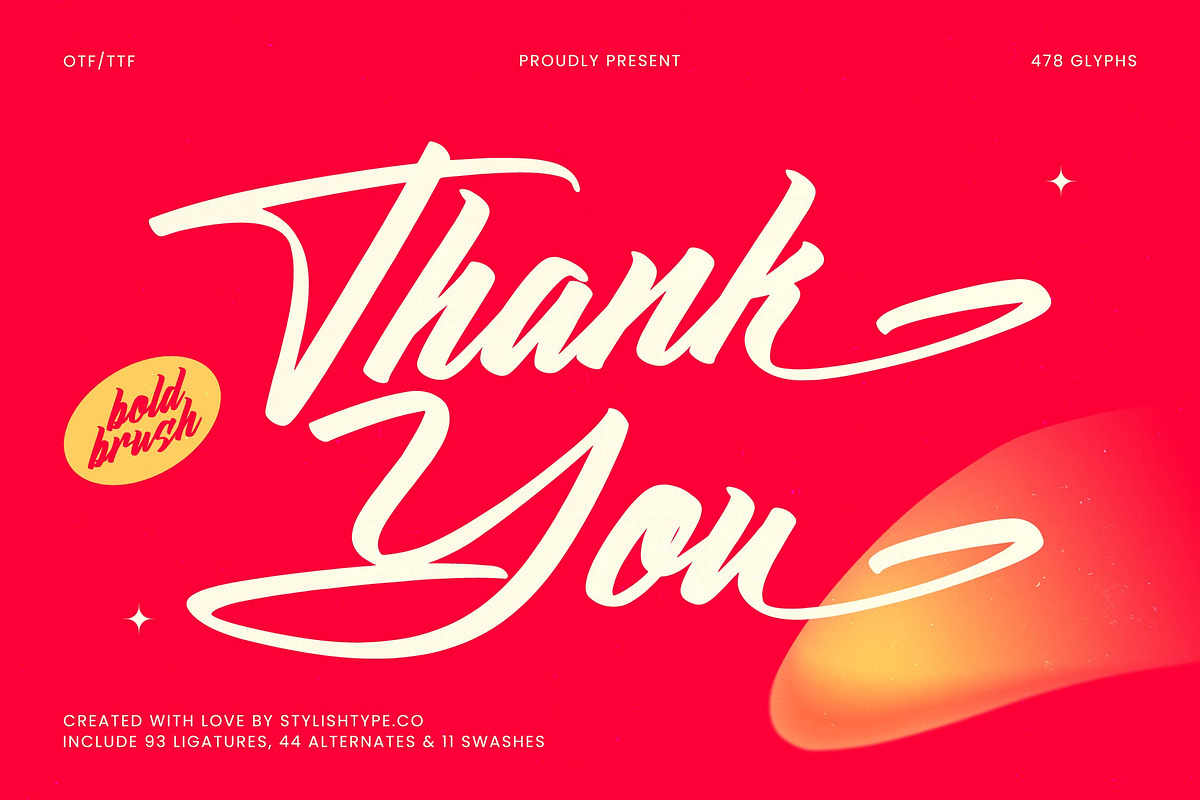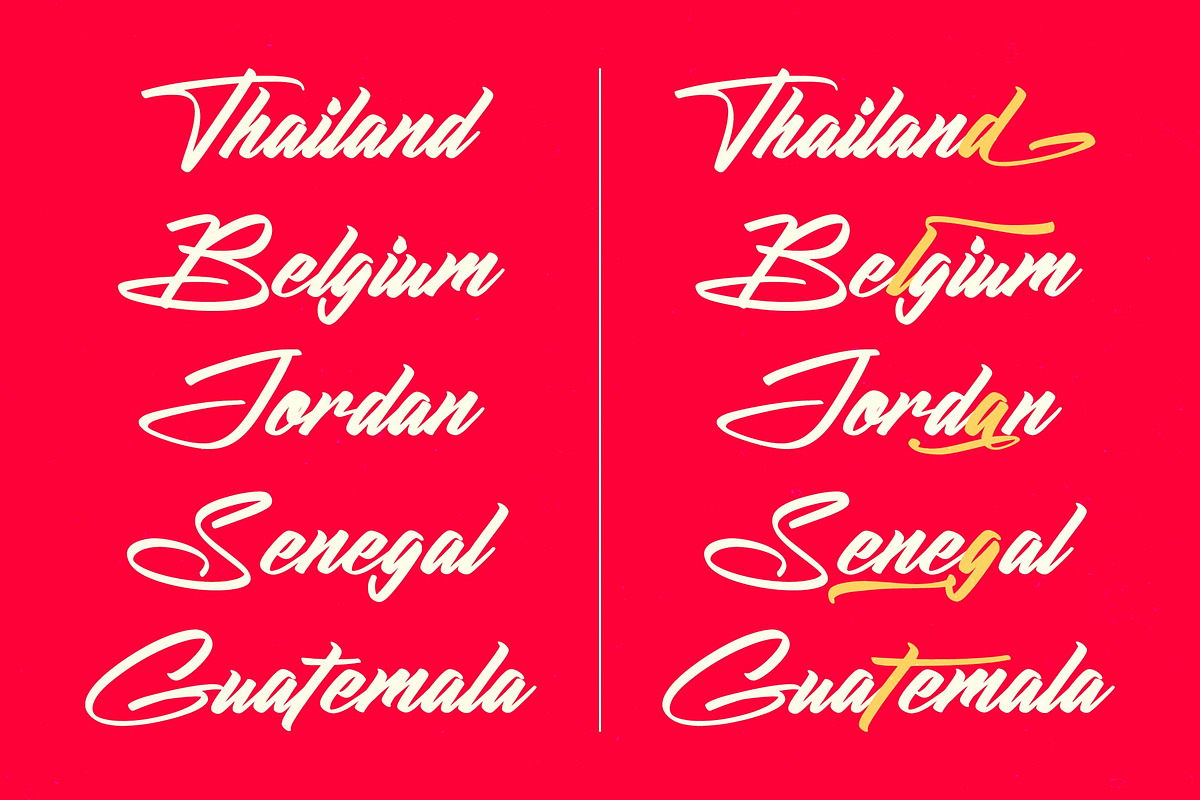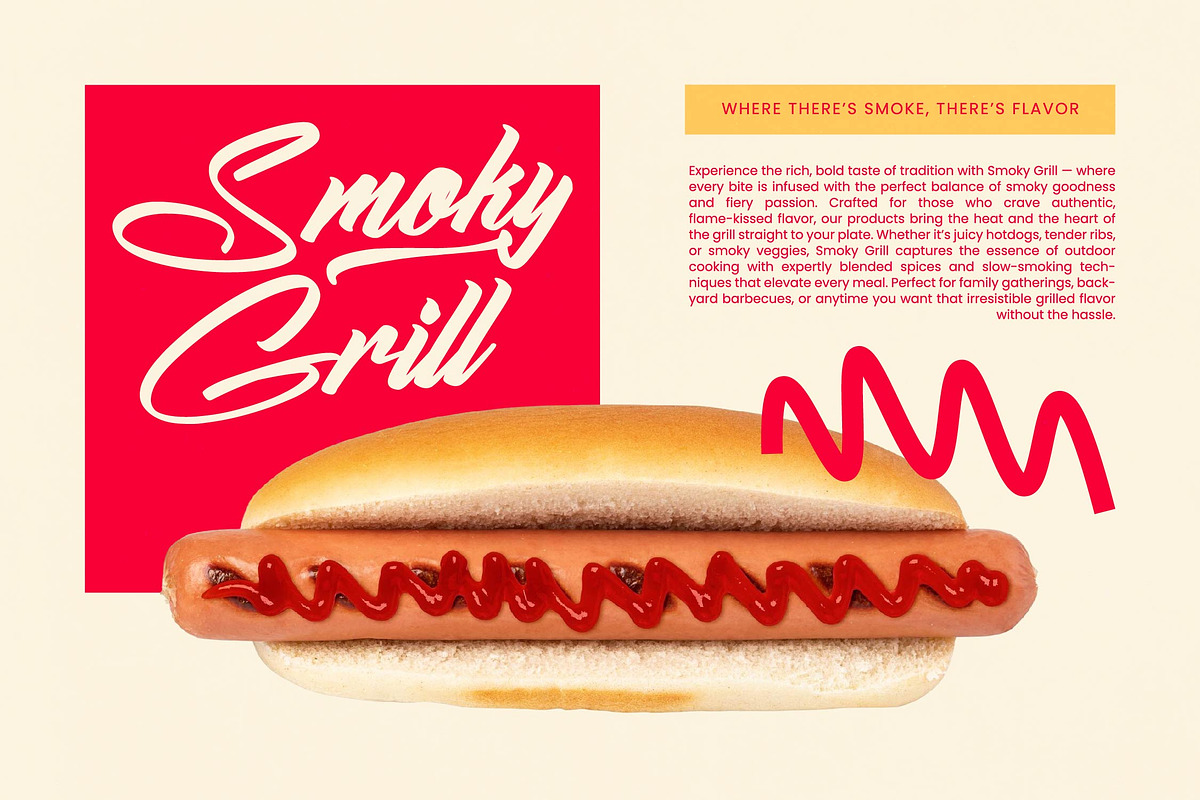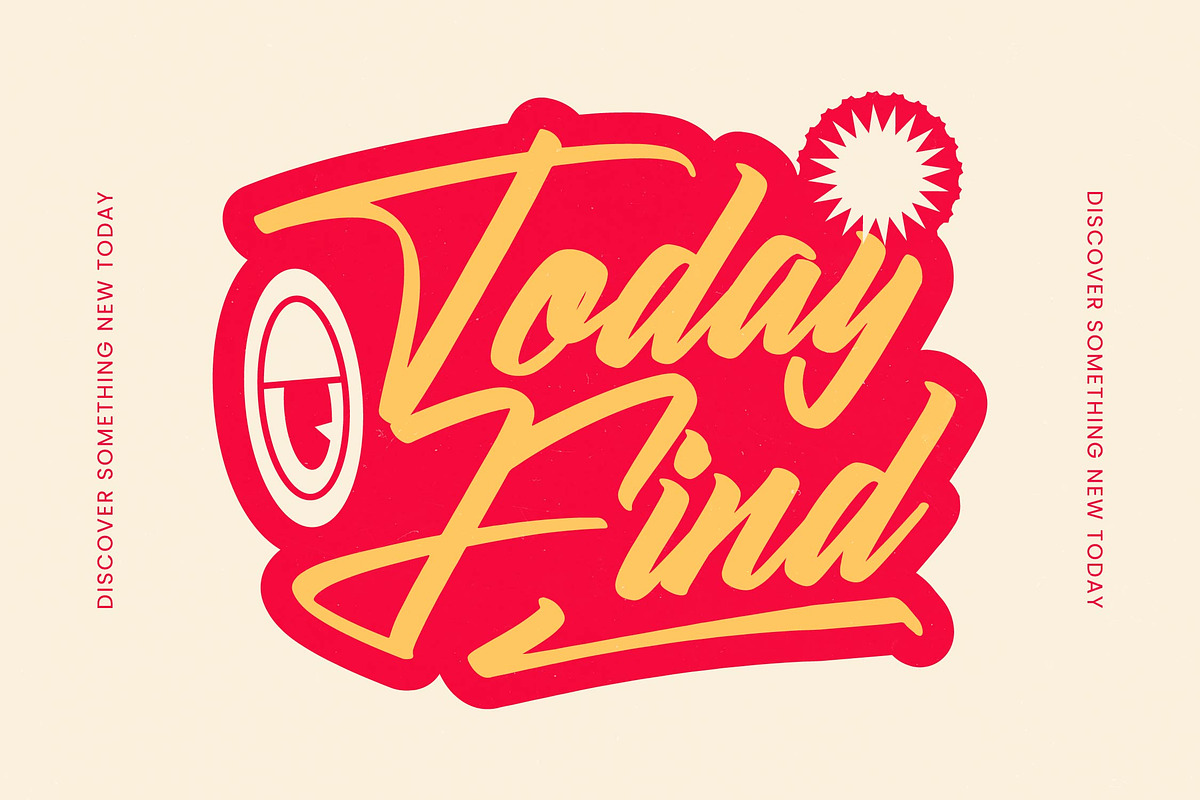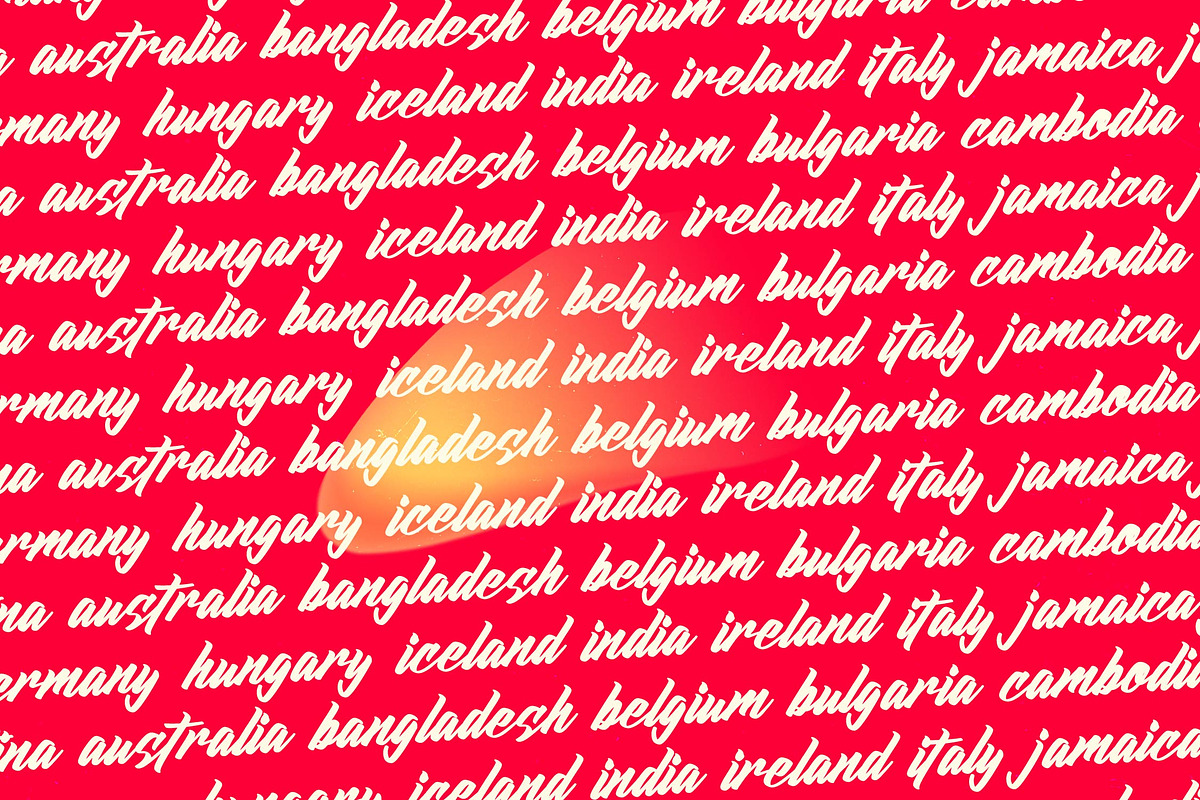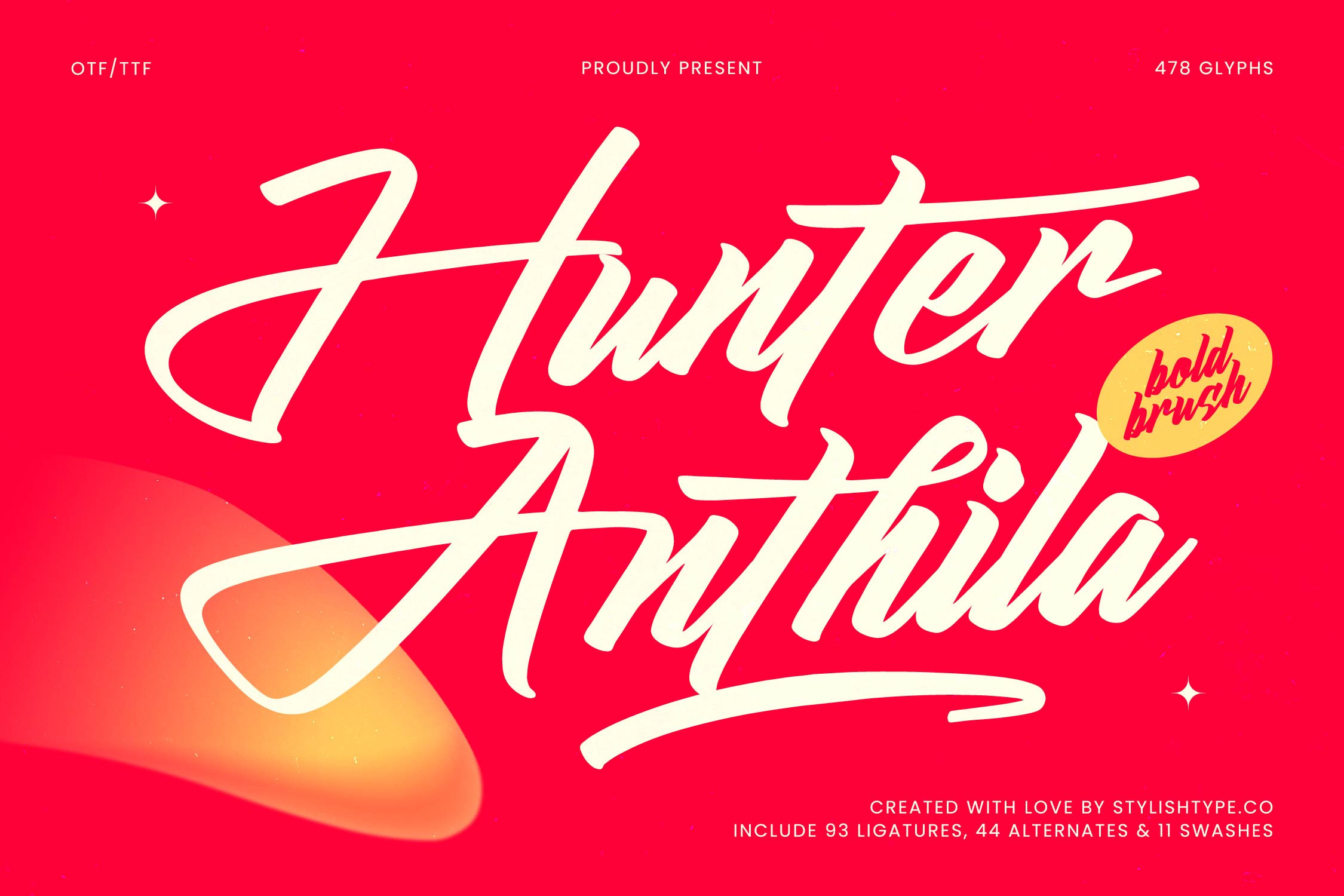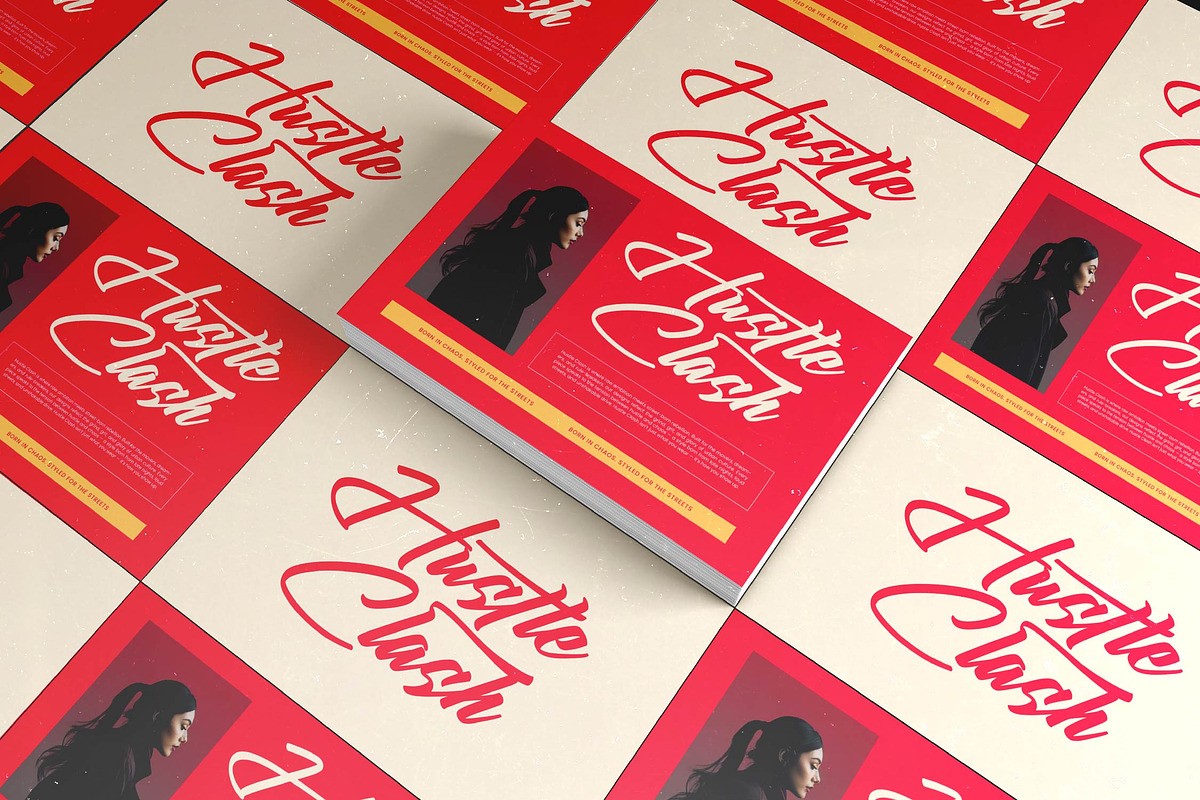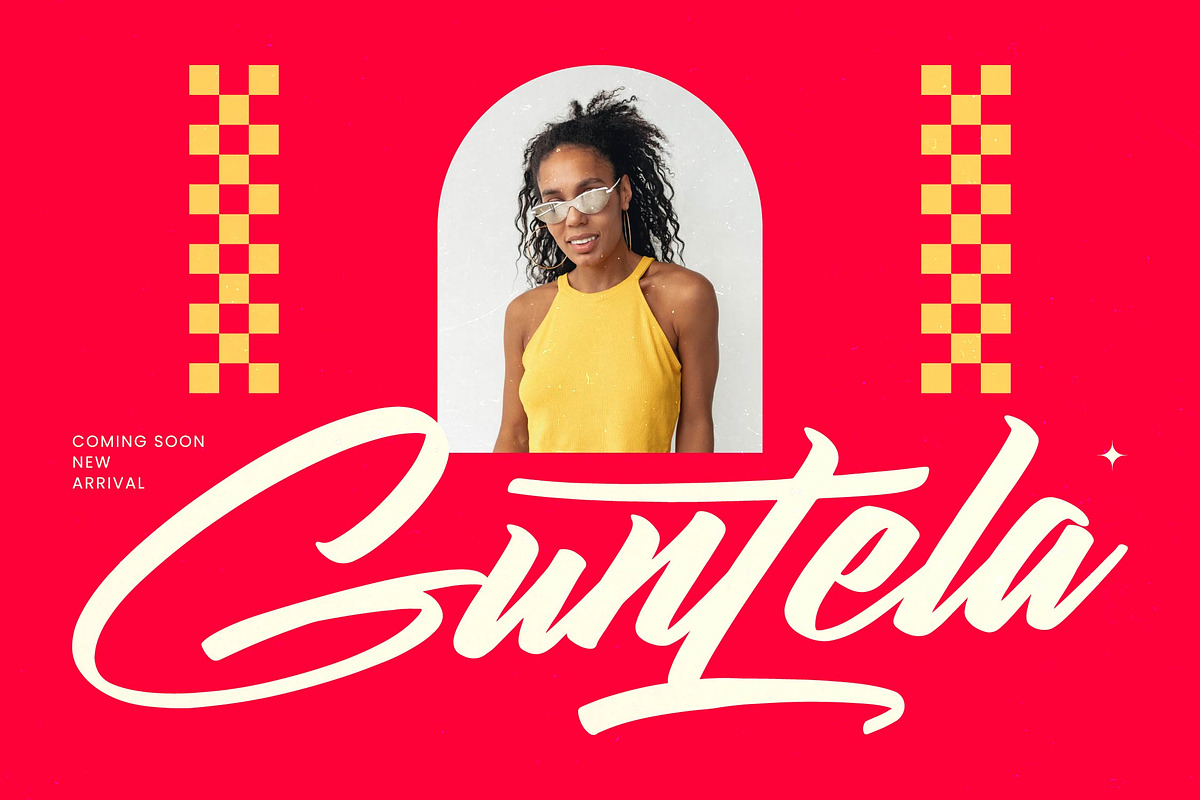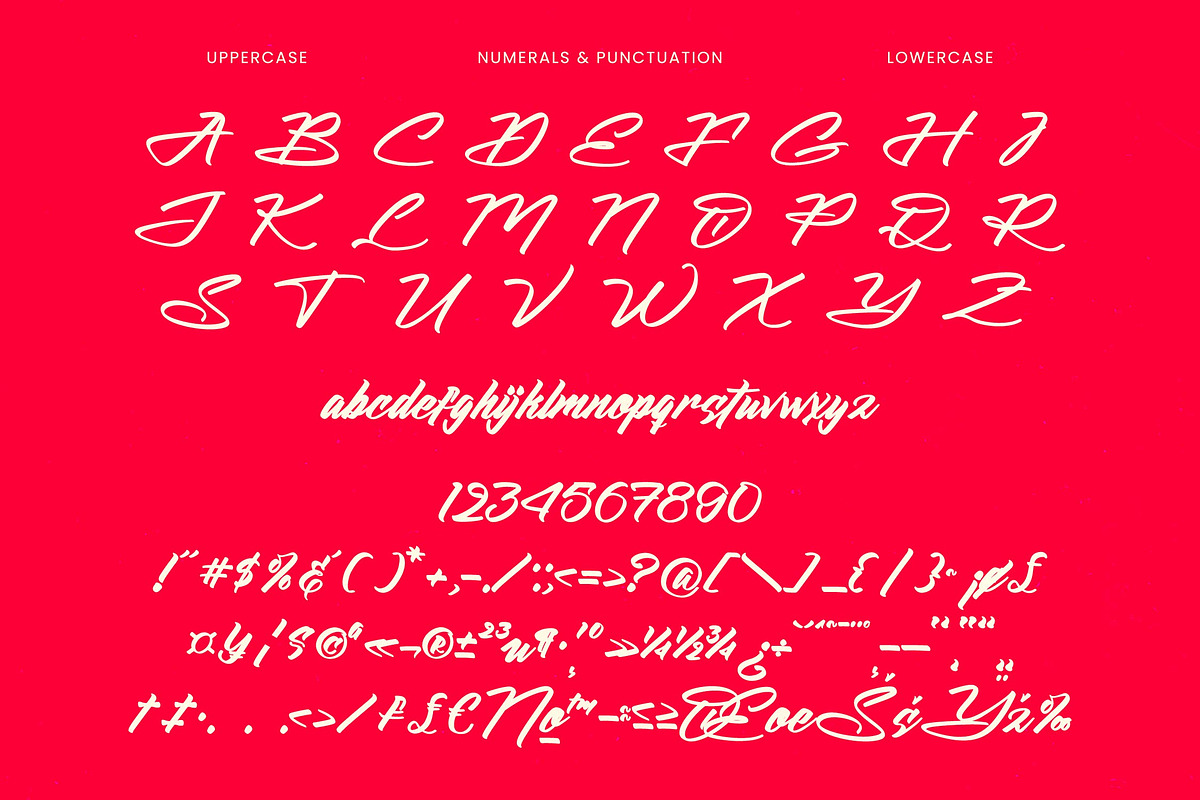
Hunter Anthila Bold Brush Font
Hunter Anthila - Bold Brush Font , from Stylishtype , Suitable for any projects such as: logos, branding projects, homeware designs, product packaging, mugs, quotes, posters, shopping bags, t-shirts, book covers, name card, invitation cards, greeting cards, label, photography, watermark, special events, and all your other luxury and beautiful projects that need a Luxury Script taste.
- 93 Ligature 44 Alternates & 11 Swashes